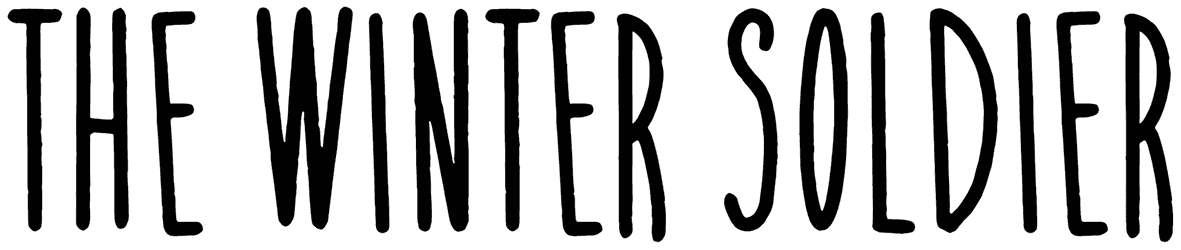
The Winter Soldier Font
With a minimal and hand-drawn face, The Winter Soldier is designed to convey a chummy mood. This handwritten font doesn’t consist of lowercase, but its modest form allows you to use it in a variety of designs. Display your items such as posts, stickers, posters, or many more creative designs with this slim font and be catchy.